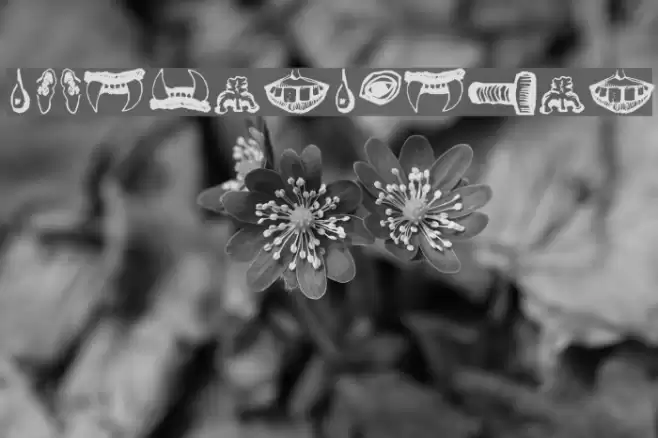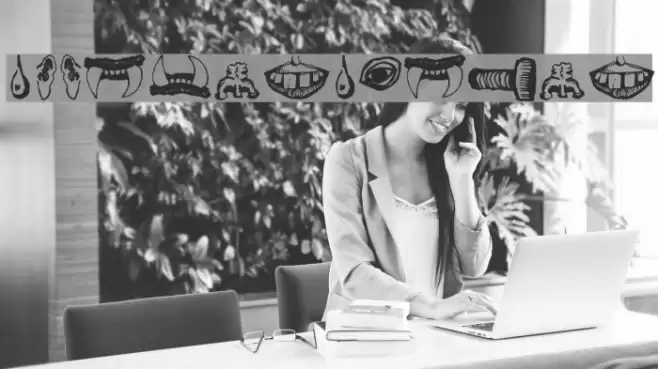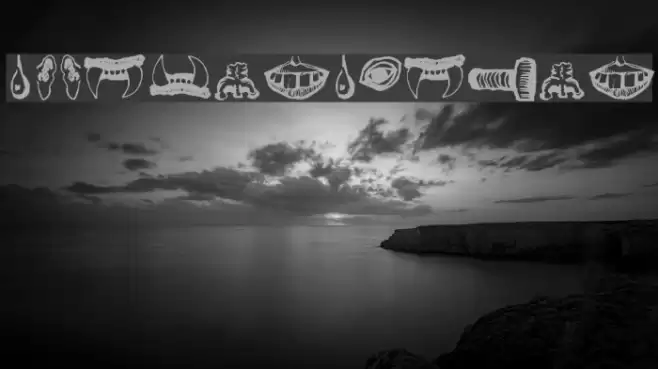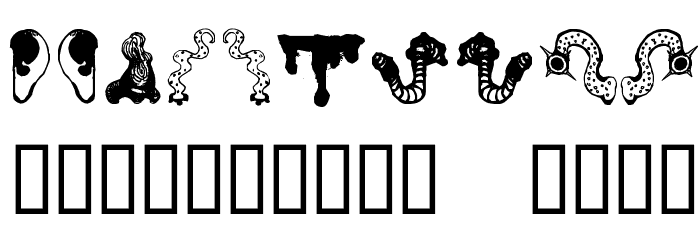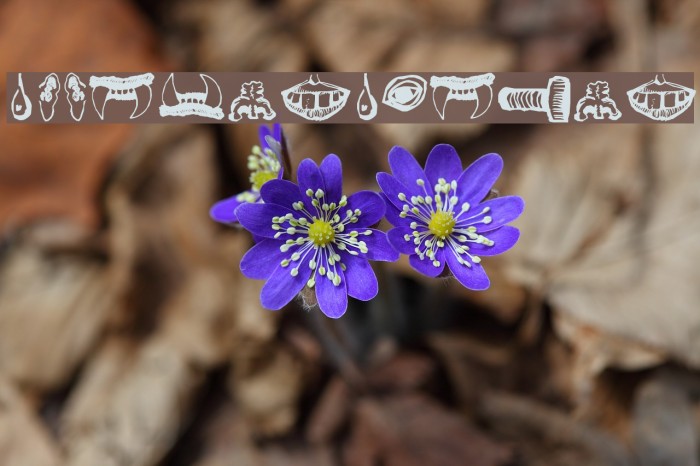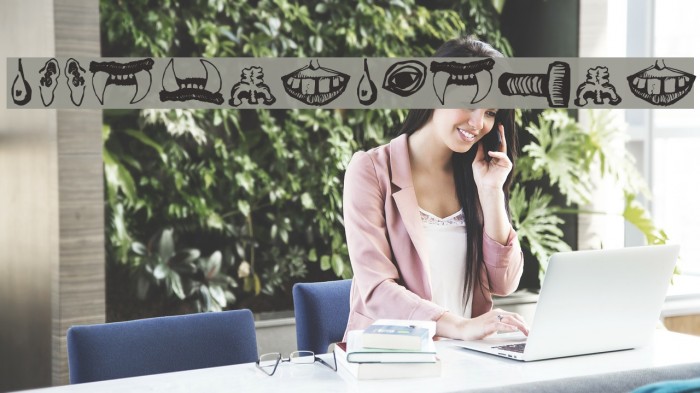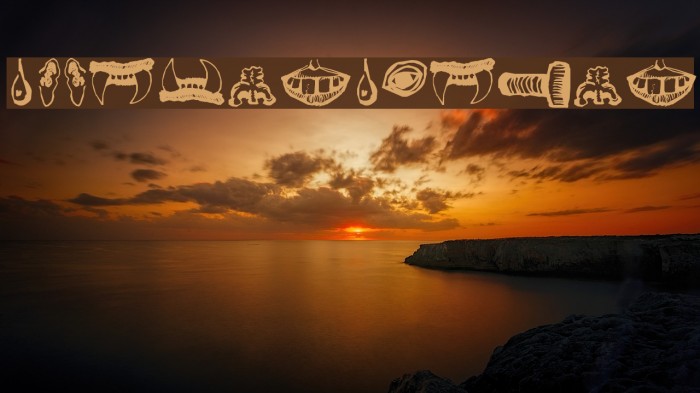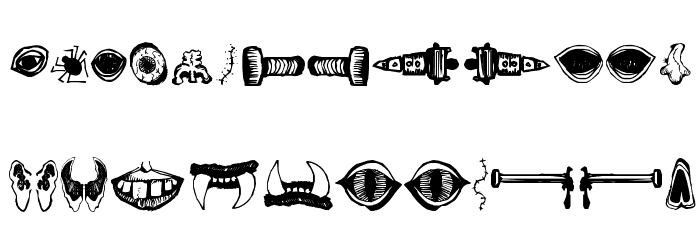
MonsterMasher Font
MonsterMasher Description
This is a highly decorative and whimsical font that features a variety of monstrous and fantastical elements. Each character is uniquely designed with intricate details, resembling parts of mythical creatures such as horns, eyes, teeth, and tentacles. The font is bold and visually striking, with a playful yet eerie aesthetic that captures the imagination. The characters are not uniform in shape or size, adding to the chaotic and dynamic feel of the font. This design is perfect for projects that require a touch of fantasy or horror, making it ideal for Halloween-themed materials or creative storytelling.
A whimsical, monster-themed decorative font with intricate, fantastical elements.
- Proposed Projects: Ideal for Halloween invitations, fantasy book covers, horror movie posters, and creative storytelling projects.